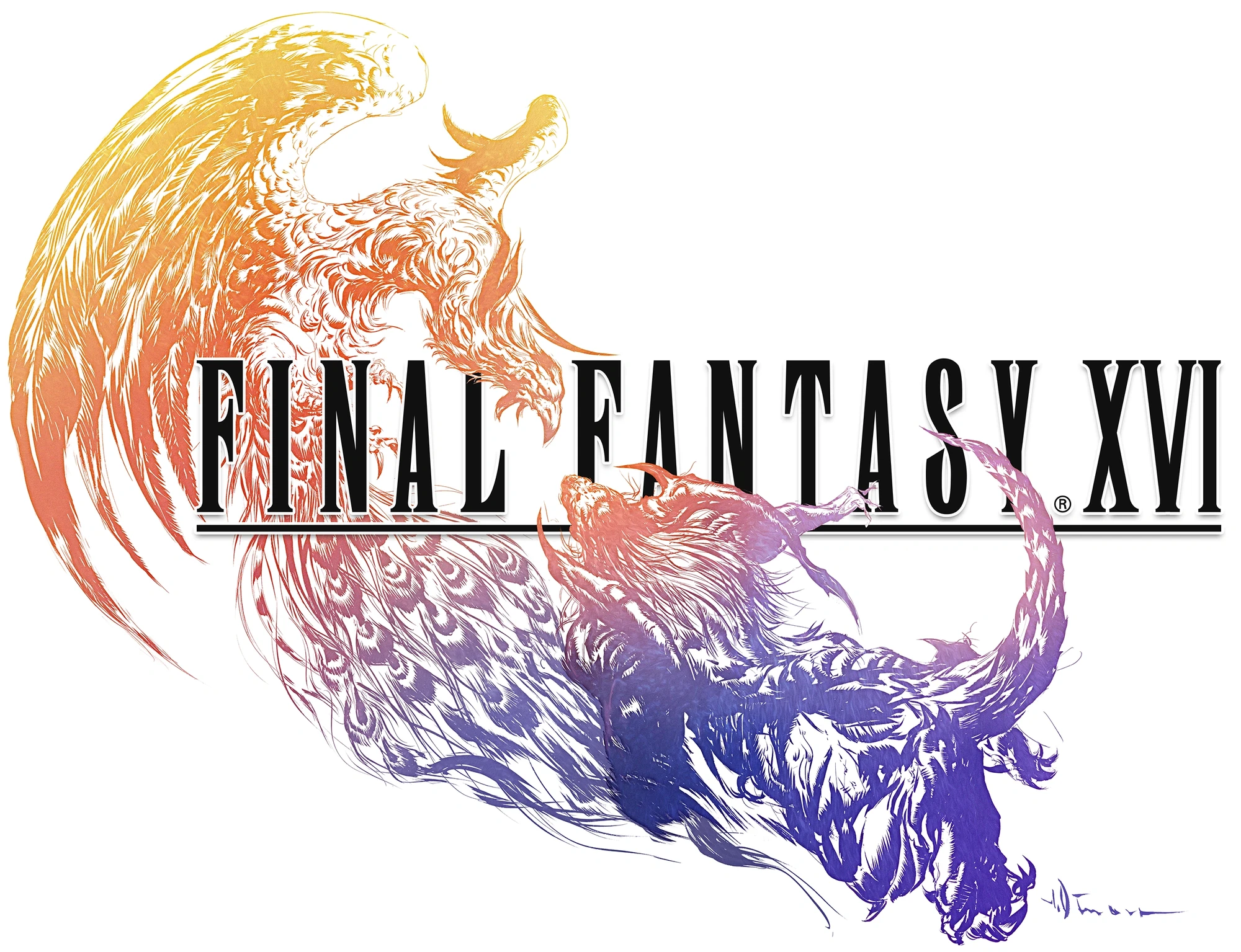
It will also replace the numbers when dealing damage on screen, as well as numbers. Size final fantasy by juan pablo reyes altamirano. The font used for the “shadowbringers” part is a modified version of canada type’s jupiter bold.
The “final fantasy xiv” lettering resembles a free condensed sans serif called opti enge etienne. Shadowbringers is the third expansion for the game and it was released on july 2, 2019. I'm sure with some playing around you could find a close match in the world of free fonts as well.